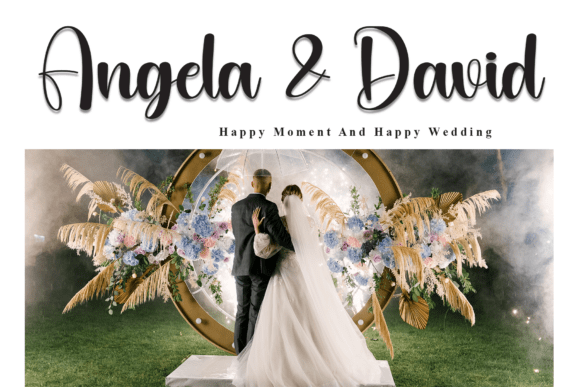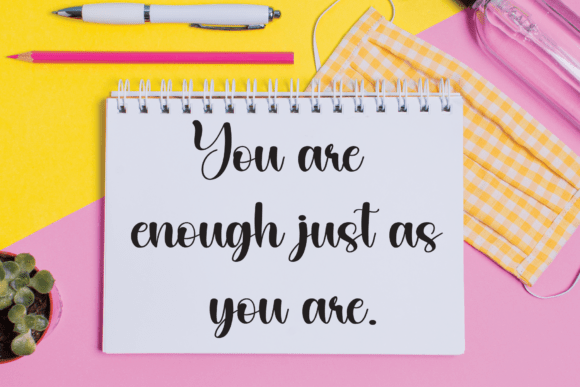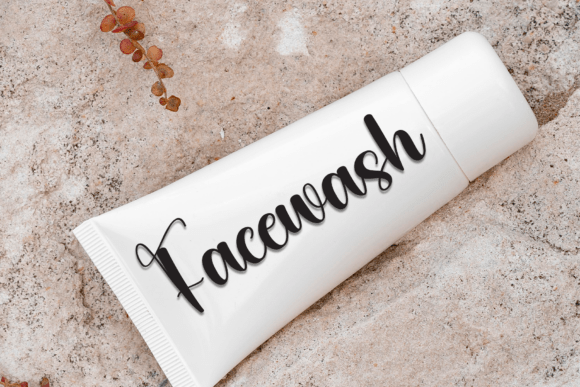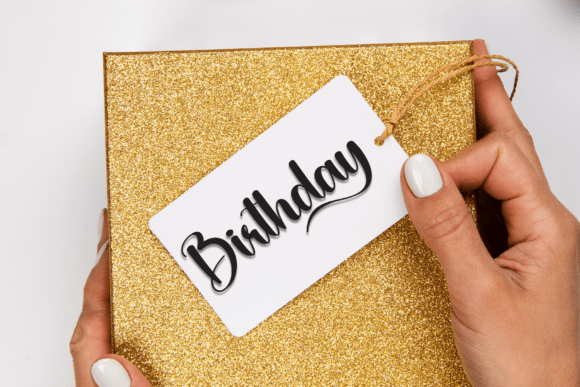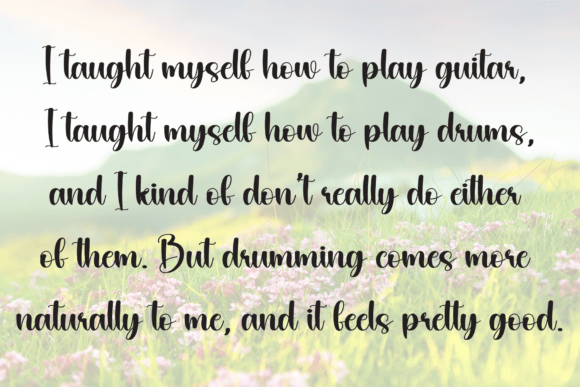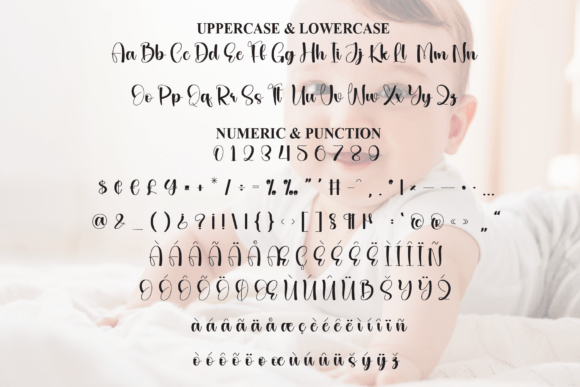
Baby Font: Elevate Your Designs with Elegance and Charm
In the world of typography, few fonts manage to strike a balance between elegance and modernity as effortlessly as Baby Font. This stylish handwritten script font is designed to bring a touch of sophistication and warmth to any project, making it an ideal choice for designers and crafters looking to add a personal, refined touch to their work.
The Characteristics of Baby Font
Baby Font is characterized by its flowing strokes and organic curves, which give it a unique and charming appearance. The font’s elegant and refined design makes it perfect for a variety of applications, from branding and invitations to social media and digital content. Its modern flair ensures that it stands out in a crowded design landscape, while its classic undertones provide a sense of timelessness and versatility.
Why Choose Baby Font?
There are several reasons why Baby Font has become a go-to choice for designers and crafters:
- Elegance and Sophistication: Baby Font’s refined design and flowing strokes bring a level of elegance and sophistication to any project, making it ideal for high-end branding, luxury invitations, and premium digital content.
- Modern Flair: The font’s modern undertones ensure that it feels fresh and contemporary, making it perfect for designers looking to create work that feels current and on-trend.
- Versatility: Baby Font’s versatility makes it suitable for a wide range of applications, from digital content and social media to print materials and packaging.
- Personal Touch: The font’s handwritten script style adds a personal touch to any project, making it feel more approachable and relatable.
Using Baby Font in Your Designs
Baby Font is incredibly easy to use and can be incorporated into a variety of design projects. Here are a few ideas to get you started:
- Branding: Use Baby Font as a primary font for your brand identity, or as an accent font to add a touch of elegance and sophistication.
- Invitations: Create beautiful and elegant invitations for weddings, parties, and other special occasions using Baby Font.
- Social Media: Use Baby Font to create eye-catching social media graphics, quotes, and posts that stand out in a crowded feed.
- Digital Content: Add a touch of elegance and sophistication to your digital content, including blog posts, articles, and eBooks.
Tips for Working with Baby Font
Here are a few tips to keep in mind when working with Baby Font:
- Pair it with a sans-serif font: Baby Font pairs beautifully with sans-serif fonts, which provide a clean and modern contrast to its elegant script style.
- Use it sparingly: While Baby Font is elegant and sophisticated, it can be overwhelming if used excessively. Use it sparingly to add a touch of elegance and refinement to your design.
- Experiment with colors: Baby Font looks beautiful in a variety of colors, from rich jewel tones to soft pastels. Experiment with different colors to find the perfect combination for your design.
Baby Font is a stylish and elegant handwritten script font that brings a touch of sophistication and warmth to any project. Its modern flair and classic undertones make it a versatile choice for designers and crafters, while its flowing strokes and organic curves add a personal and refined touch. Whether you’re working on a branding project, creating invitations, or designing social media graphics, Baby Font is an excellent choice.